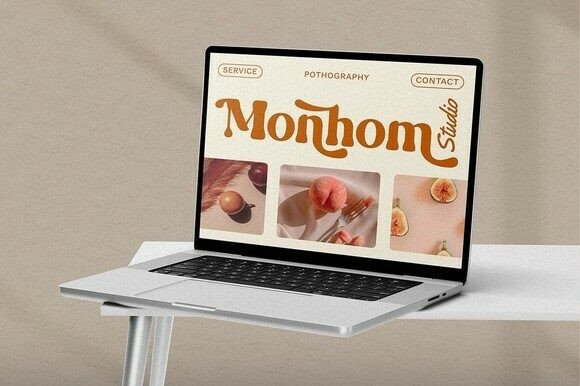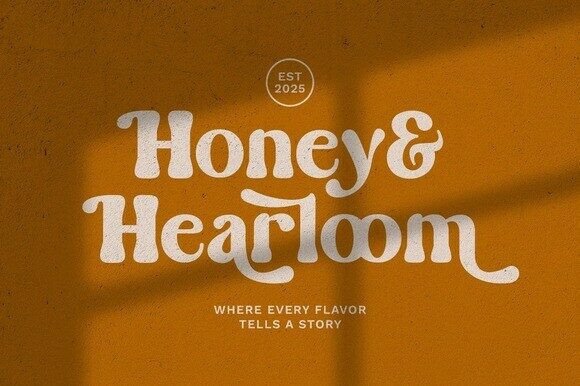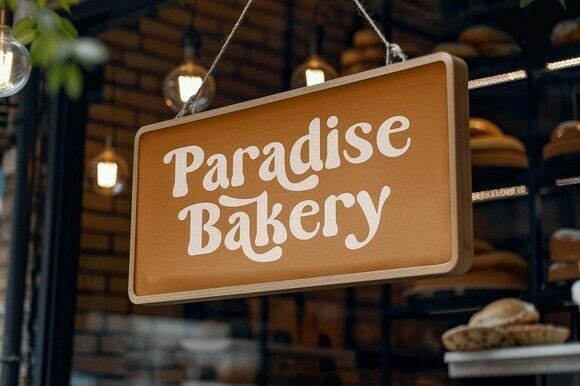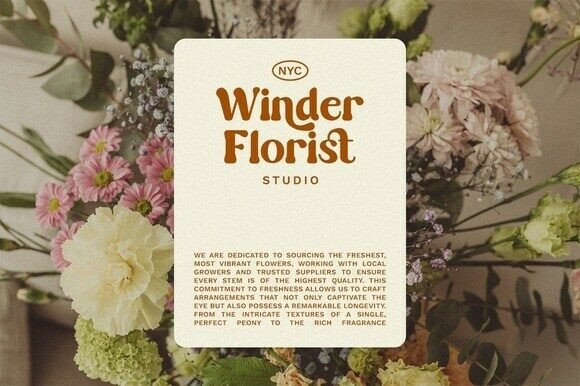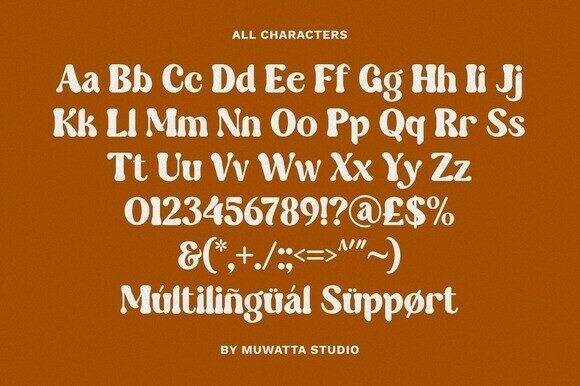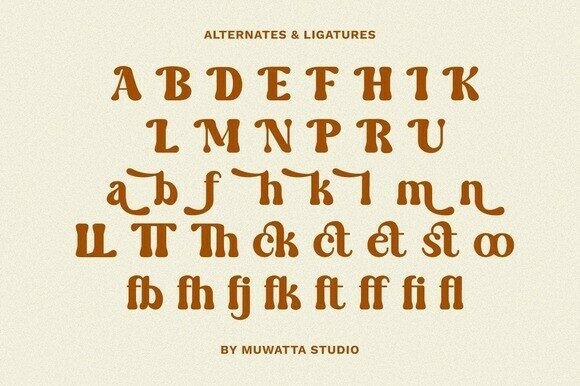
Take a Trip Back to the Golden Era of Design with Camstey Font
Are you ready to add a dash of nostalgia to your designs? Look no further than the Camstey font, a unique display typeface that perfectly captures the groovy, retro spirit of the 70s with a modern twist. This stunning font is sure to transport you back to the golden era of design, with its delicious, fluid curves and heavy bottom weight that gives your text a mesmerizing “lava lamp” flow and undeniable personality.
The Perfect Blend of Retro and Modern
Camstey is more than just a font – it’s an experience. Its bold, dynamic curves and strong visual rhythm make it the perfect powerhouse for vintage branding, vinyl cover art, and trendy streetwear labels looking for that nostalgic aesthetic. Whether you’re a designer, craft, or simply a fan of retro style, Camstey is the perfect choice for anyone looking to add a touch of classic cool to their work.
Unleash Your Creativity with Camstey
One of the things that sets Camstey apart from other fonts is its incredible versatility. This visually distinct typeface can transform simple headlines into works of art, making it the perfect choice for designers looking to make a statement. With Camstey, you can:
- Create eye-catching posters and flyers that demand attention
- Design stunning vinyl cover art that captures the essence of the 70s
- Develop trendy streetwear labels that stand out from the crowd
- Add a touch of nostalgia to your branding and marketing materials
Tips for Getting the Most Out of Camstey
To fully unlock the psychedelic, retro-cool potential of Camstey, try pairing it with grainy textures and warm, earthy tones like ochre and burnt orange. This will help to create a truly immersive experience that transports your audience back to the golden era of design. Here are a few more tips for getting the most out of Camstey:
- Experiment with different colors and textures to find the perfect combination for your design
- Use Camstey in combination with other fonts to create a unique and eye-catching visual statement
- Don’t be afraid to get creative and try new things – Camstey is a font that’s meant to be pushed to its limits
The Design Behind Camstey
So what makes Camstey so special? The answer lies in its unique design. With its fluid curves, bold lines, and heavy bottom weight, Camstey has a truly one-of-a-kind look that’s sure to turn heads. The font’s strong visual rhythm and dynamic curves make it perfect for creating eye-catching headlines and posters, while its nostalgic aesthetic makes it a great choice for vintage branding and streetwear labels.
Why Designers and Crafters Love Camstey
Designers and crafters alike are going wild for Camstey, and it’s easy to see why. This font is the perfect combination of retro style and modern flair, making it a must-have for anyone looking to add a touch of classic cool to their work. Here are just a few reasons why designers and crafters love Camstey:
- Its unique and eye-catching design makes it perfect for standing out in a crowded design landscape
- Its versatility makes it suitable for a wide range of design applications, from posters and flyers to branding and streetwear labels
- Its nostalgic aesthetic makes it a great choice for anyone looking to add a touch of retro style to their work
In conclusion, Camstey is a truly unique and special font that’s sure to transport you back to the golden era of design. With its delicious, fluid curves and heavy bottom weight, Camstey has a mesmerizing “lava lamp” flow and undeniable personality that’s sure to turn heads. Whether you’re a designer, craft, or simply a fan of retro style, Camstey is the perfect choice for anyone looking to add a touch of classic cool to their work. So why wait? Give Camstey a try today and see the magic for yourself!